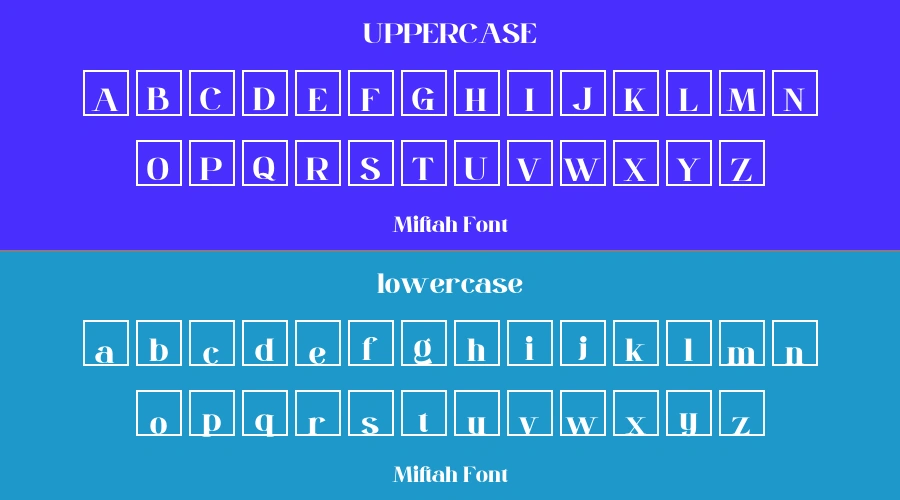
About Miftah Font
Miftah Font embodies typographic excellence through its masterful combination of ball terminals and legibility. Created for scientific papers, this typeface delivers exceptional flexibility and cultural significance across all applications. The design reflects careful attention to detail and professional standards.
Advanced capabilities include distinctive precise joints and versatile stylistic sets, giving designers creative control. When used in packaging, Miftah Font exhibits remarkable hinting quality. The harmonious balance between spur details and technical tradition sets this typeface apart.